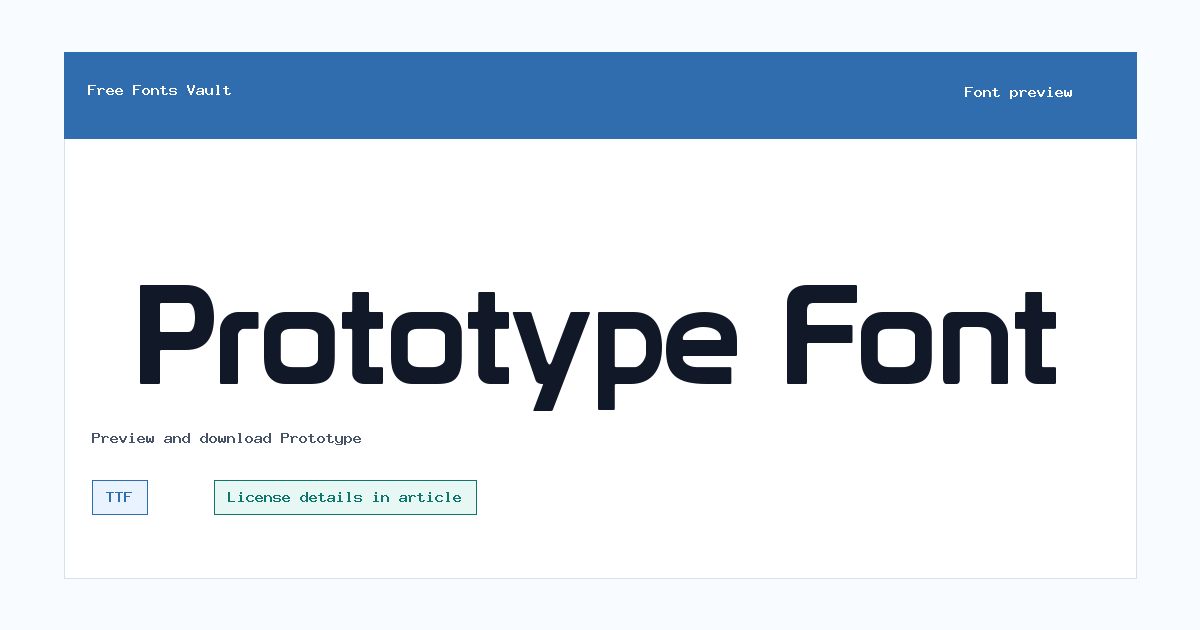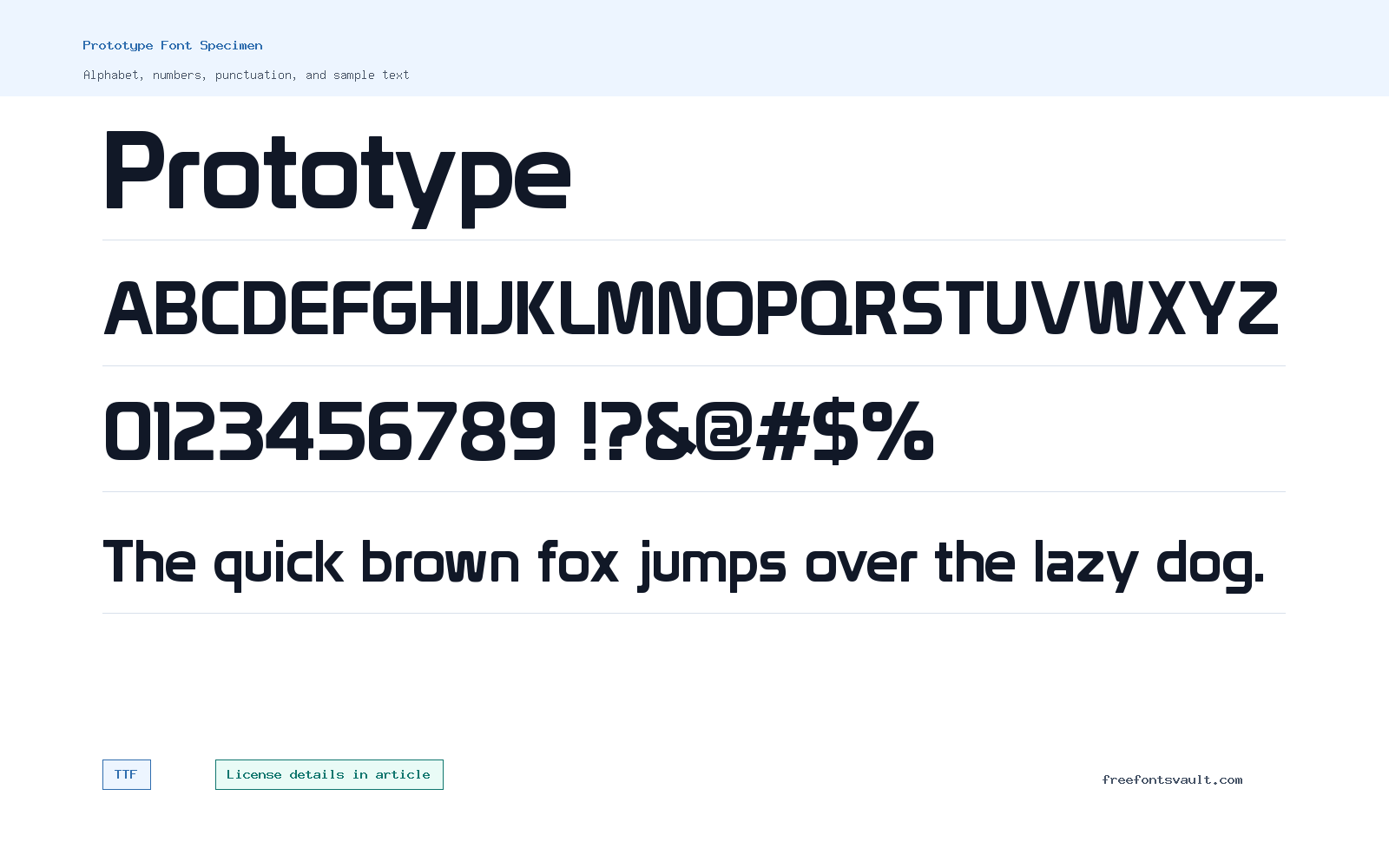
Prototype
Prototype font.
Prototype is a single-style TrueType font for personal design tests, quick mockups, and short display text where a straightforward regular style is enough.
About Prototype Font
The practical use case is simple: personal posters, rough branding concepts, social graphics, title tests, game UI mockups, thumbnails, or layout drafts where you need a single regular font quickly. If your project needs bold, italic, condensed, or multiple weights, pair Prototype with another family rather than forcing one file to do every job.
- Good for personal mockups, title drafts, and layout experiments
- Works best after checking spacing with your actual text
- Personal posters, thumbnails, and social graphics
- Quick title treatments and design mockups
- Game UI experiments, concept screens, and test layouts
- Short headings where a single regular style is enough
- Trying typography ideas before choosing a production font
Use Prototype as a test font first. Type your real heading, brand phrase, or UI label into the preview and check how the spacing behaves. If a layout needs emphasis, create contrast with size, color, or a companion font rather than assuming this single style can replace a full family.
What is Prototype best for?
It is best for personal mockups, short headings, title graphics, posters, thumbnails, and quick typography tests.